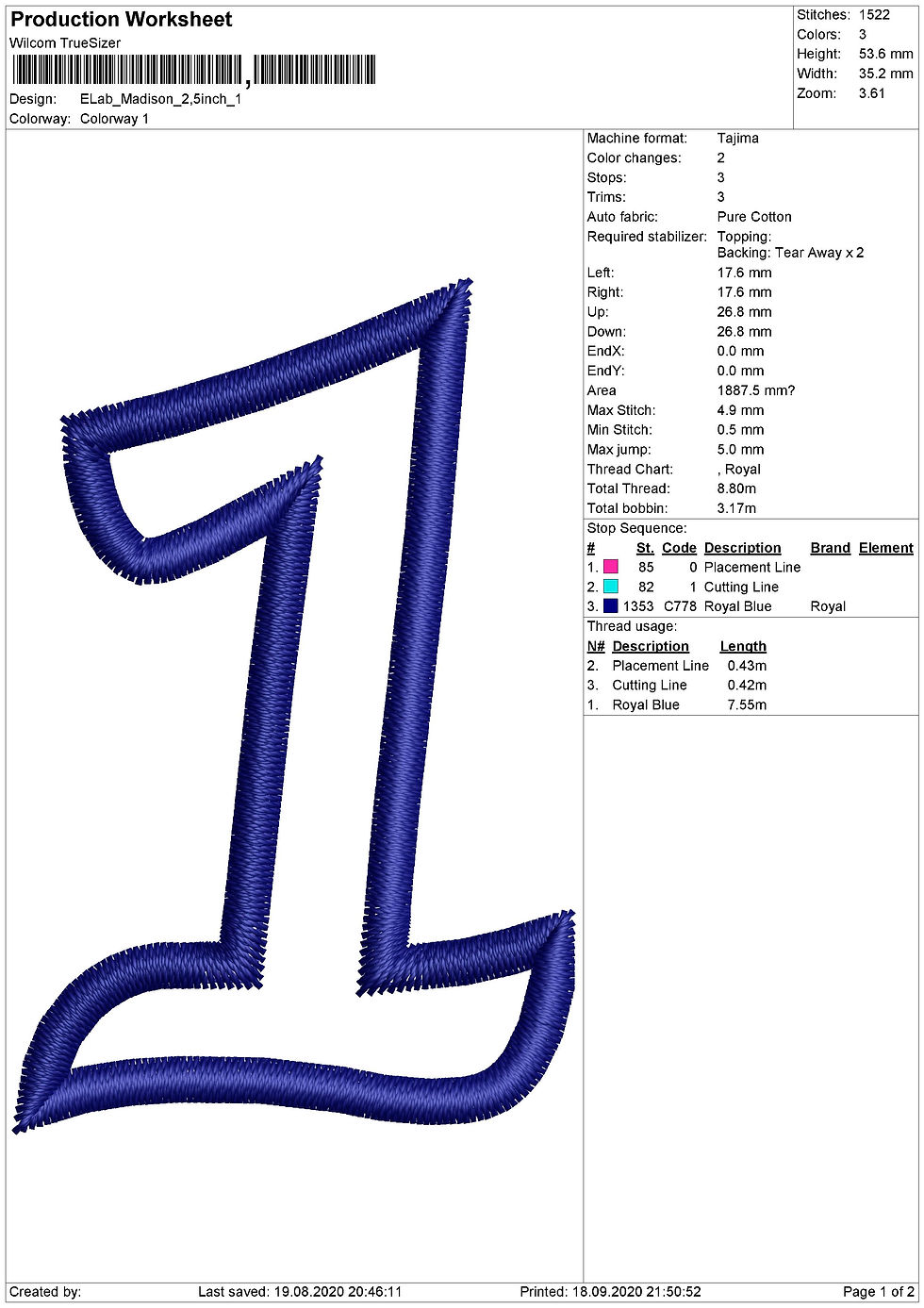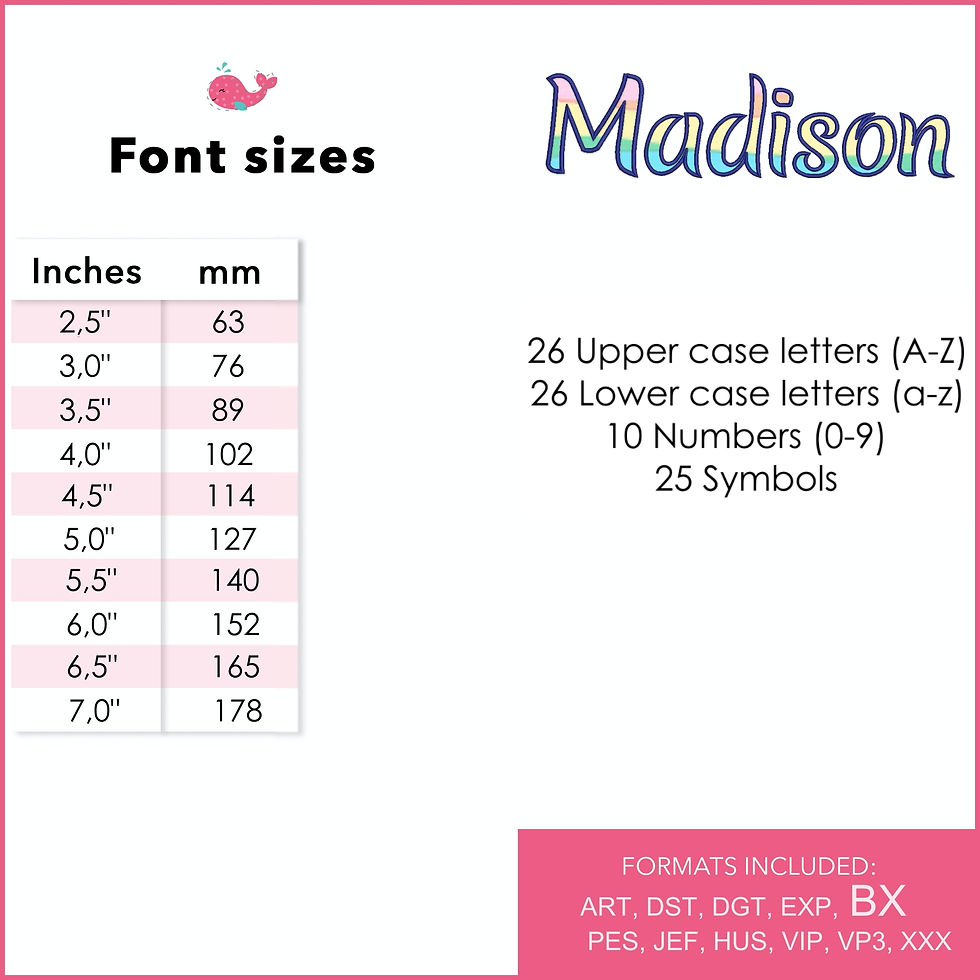
Madison Applique Font. Collegiate Sport Block Machine Embroidery Alphabet Design. Letters and Numbers. Digital download.
26 Lower case letters 10 Numbers 25 Symbols